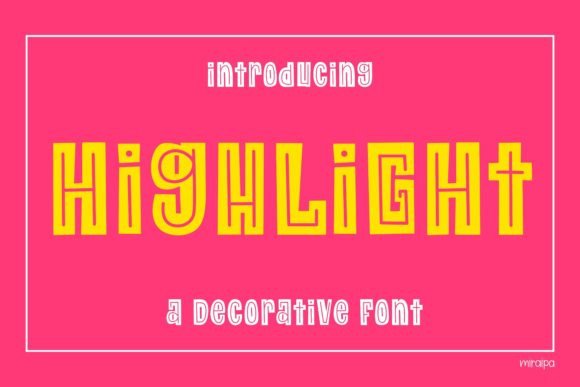
Introducing Highlight Font: The Ultimate Font for Captivating Designs
Prepare to embark on a typographic adventure with Highlight Font, the display font that adds a touch of playfulness and charm to your creative projects. Its exuberant spirit makes it the perfect choice for celebrations, such as Halloween, Christmas, birthdays, or any occasion where a dash of whimsy is desired. Unleash your imagination and let Highlight Font bring your party decorations, invitations, posters, blogs, clothing, greeting cards, social media posts, and more to life.
With its friendly and inviting demeanor, Highlight Font is the ideal font for connecting with your audience. Its unique letterforms dance across the page, creating a visual spectacle that captures attention and captivates hearts. Whether you're a designer, crafter, or simply someone who loves to add a personal touch to their projects, Highlight Font is the perfect tool to elevate your creations.
Step into a world of endless possibilities with Highlight Font. Its versatility knows no bounds, making it the perfect font for a wide range of projects. From delightful party decorations to heartfelt greeting cards, Highlight Font has the power to transform your words into works of art. Embrace the magic of Highlight Font and watch as your projects blossom into vibrant masterpieces.